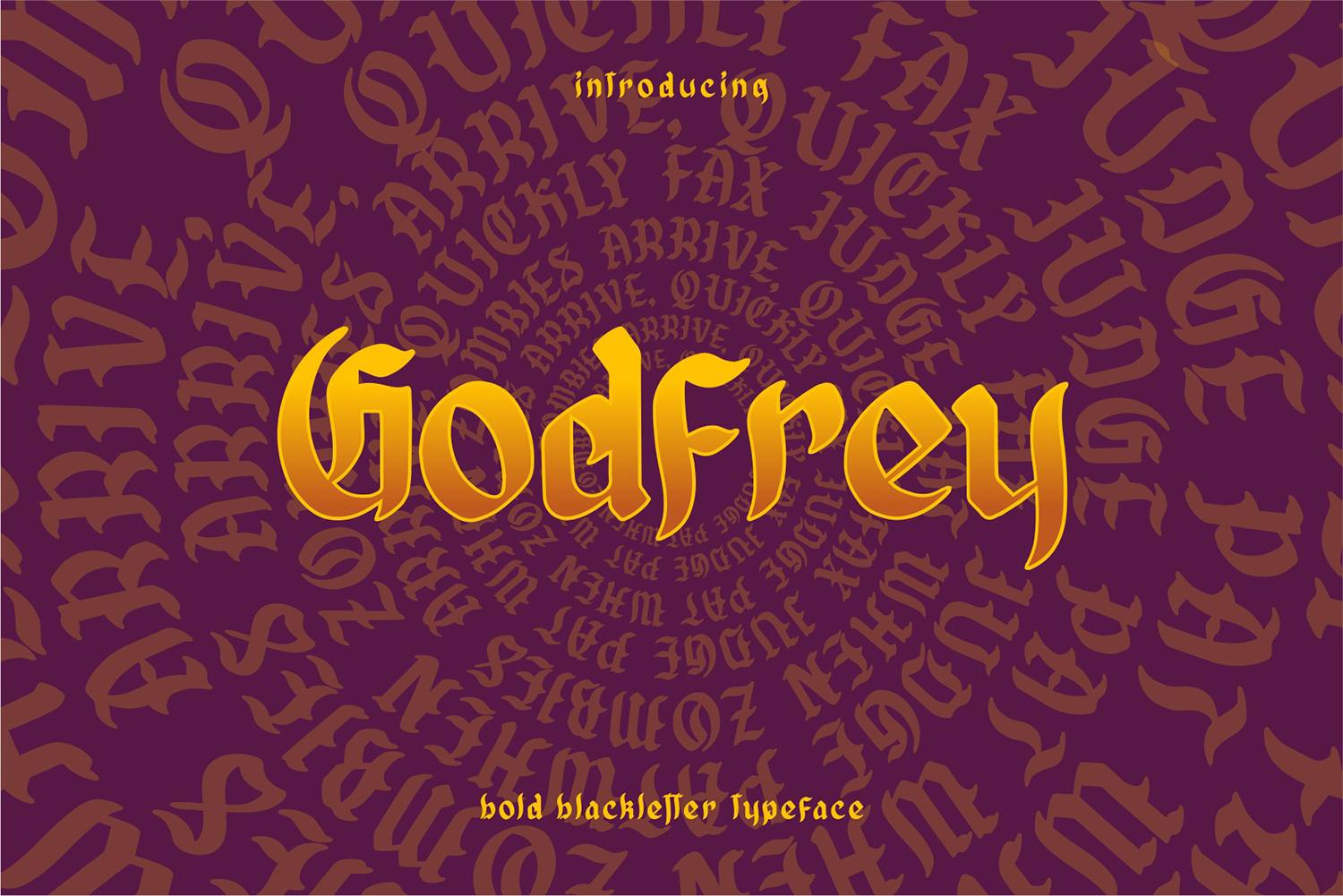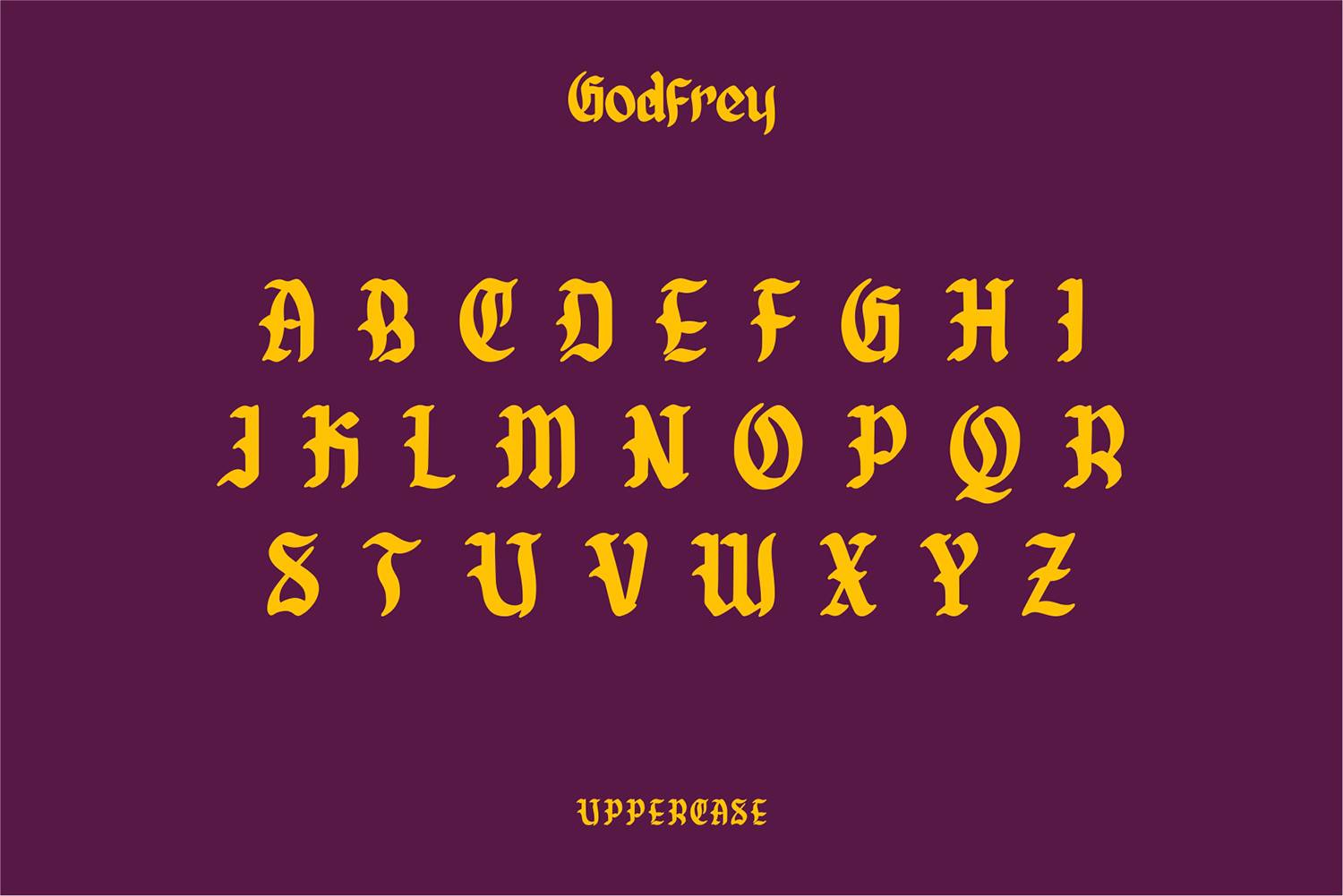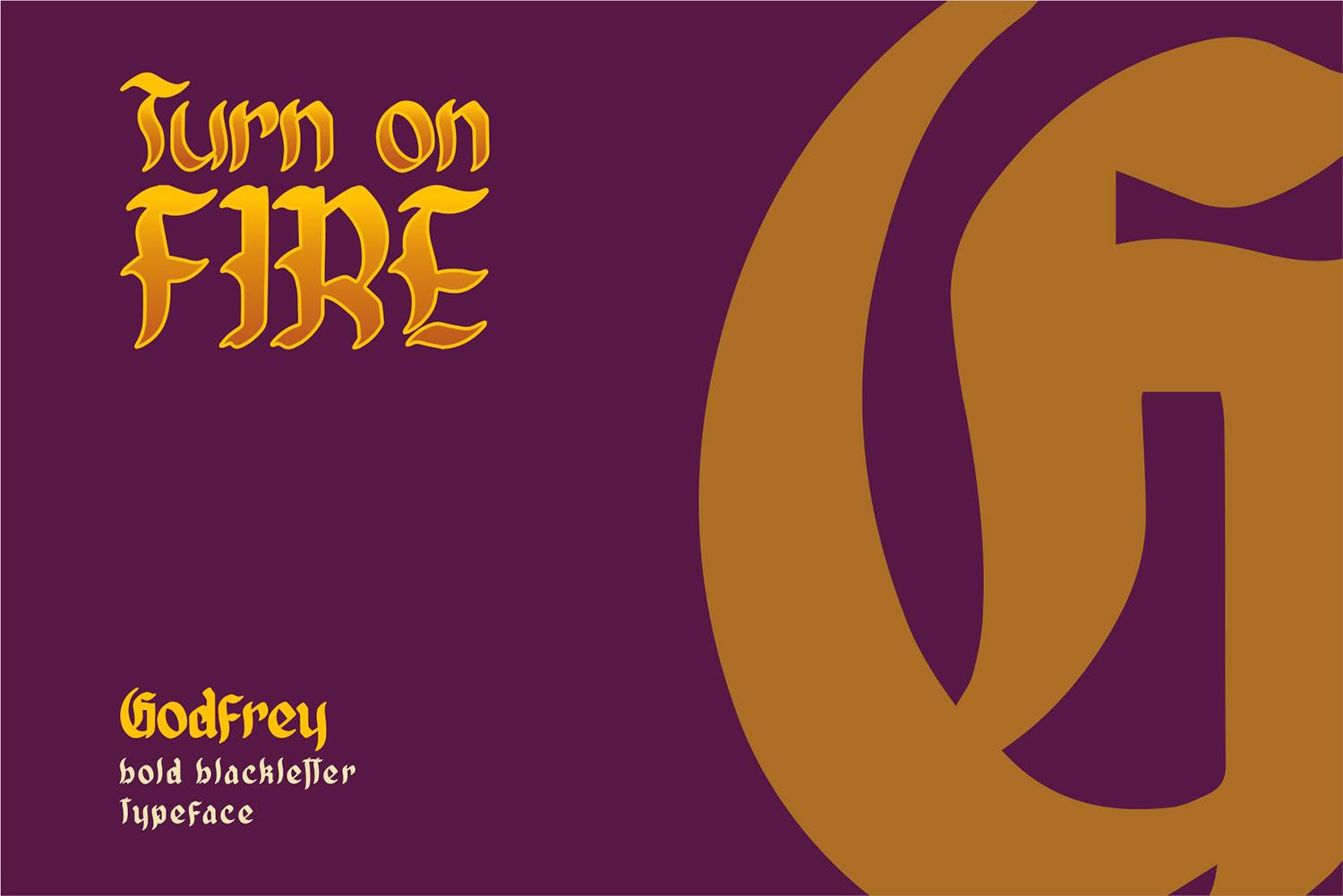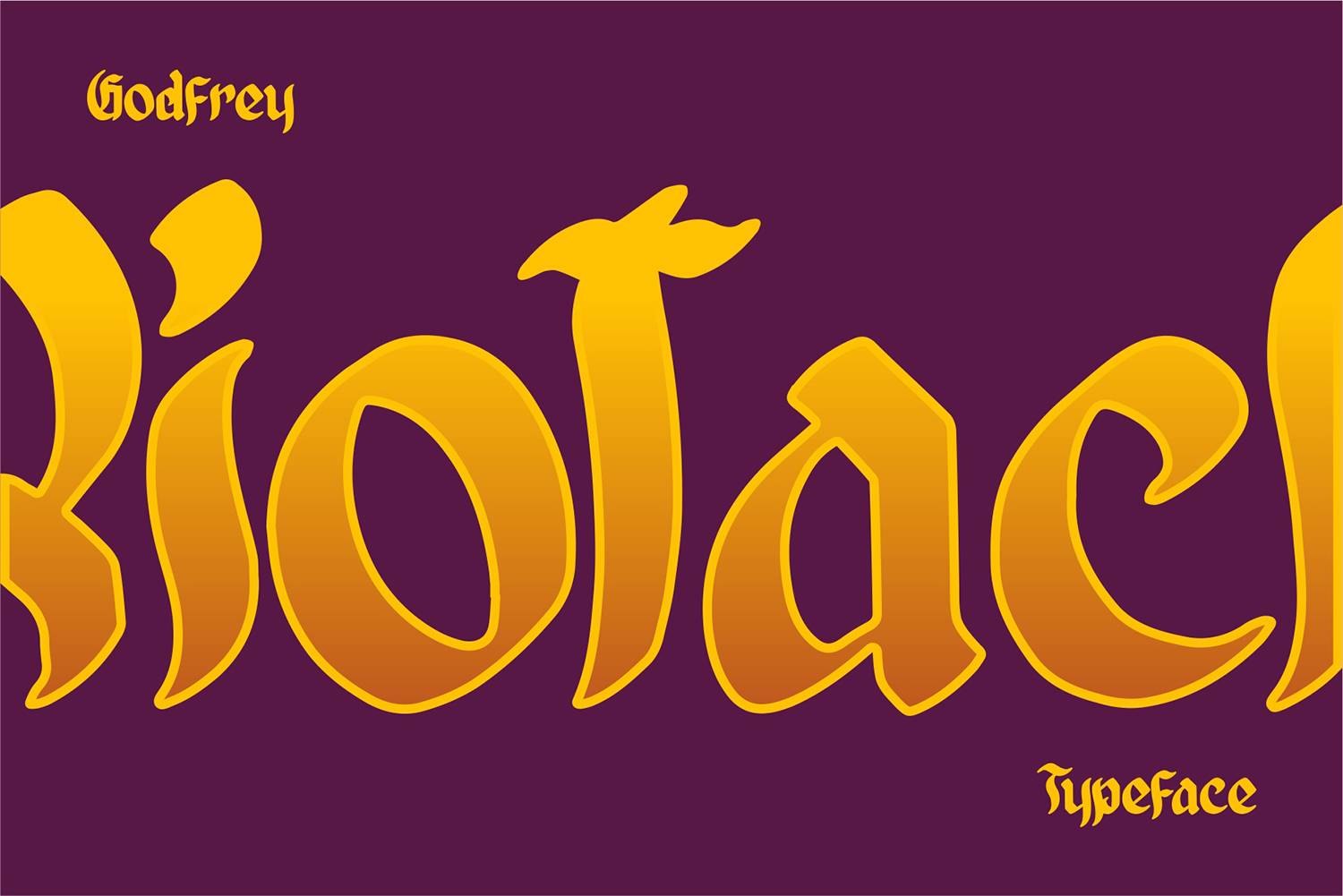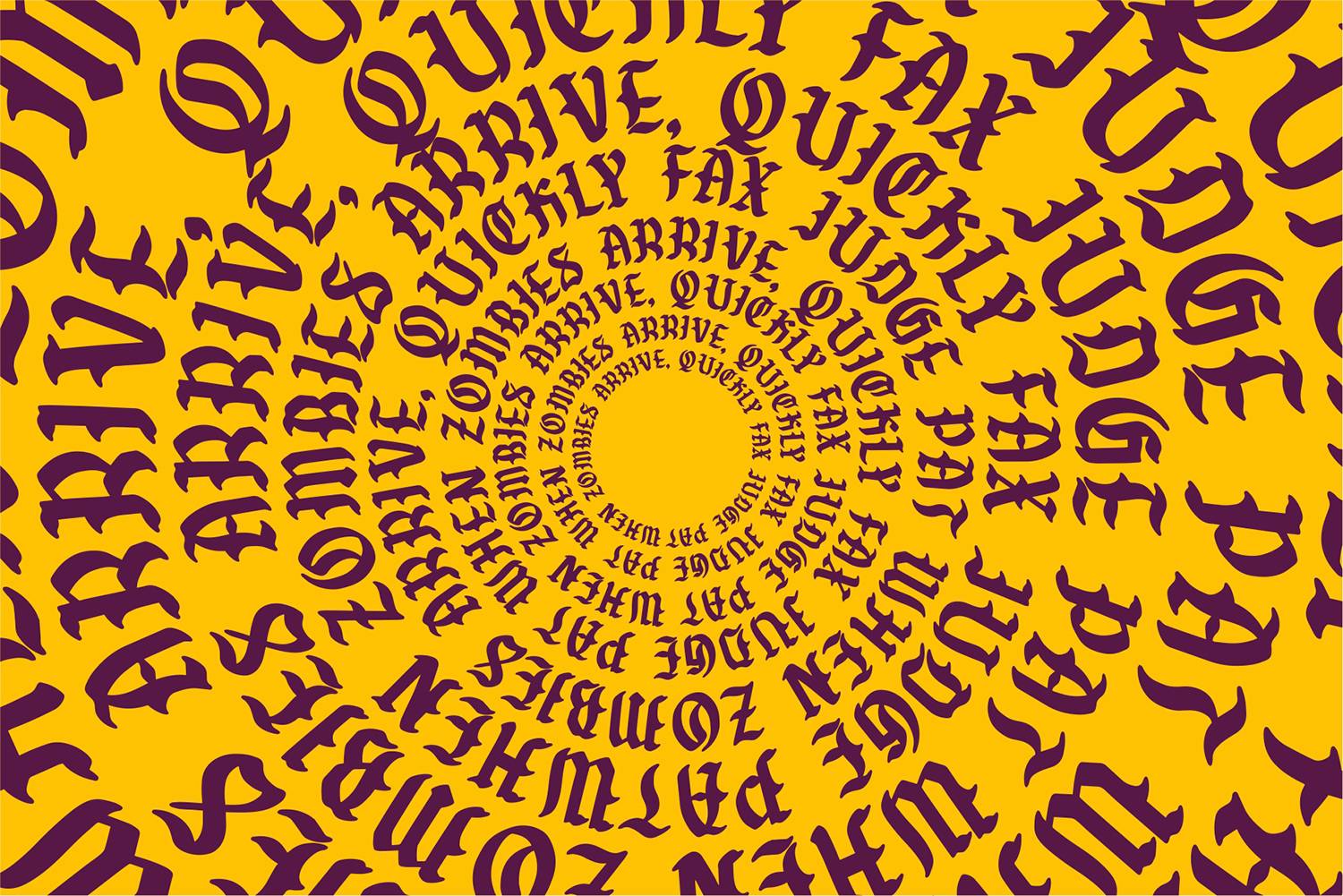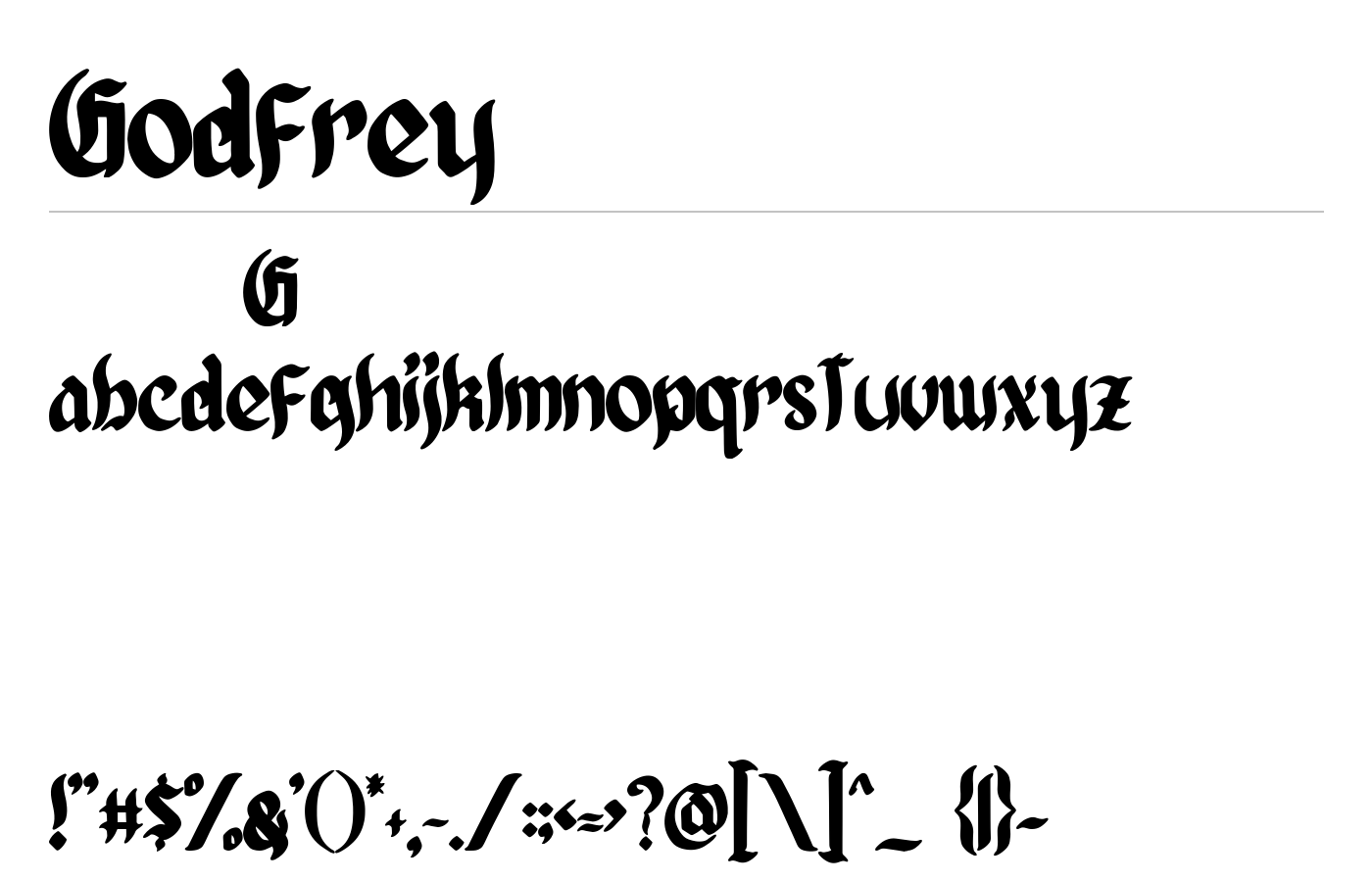
Godfrey Font is a bold, blackletter-style serif font that commands attention with its dense, sharp strokes and gothic character shapes. It features high contrast between thick and thin lines, dramatic serifs, and a distinctive medieval flair, making it perfect for vintage-inspired designs, logos, and headlines that need strong, historical personality. This font works well in branding and editorial projects seeking a bold, classic, and somewhat dramatic aesthetic.
Godfrey Font
About Godfrey Font
| Font family | Godfrey Font |
| Release date | 2019-02-20 |
| Designer | Good Java Studio |